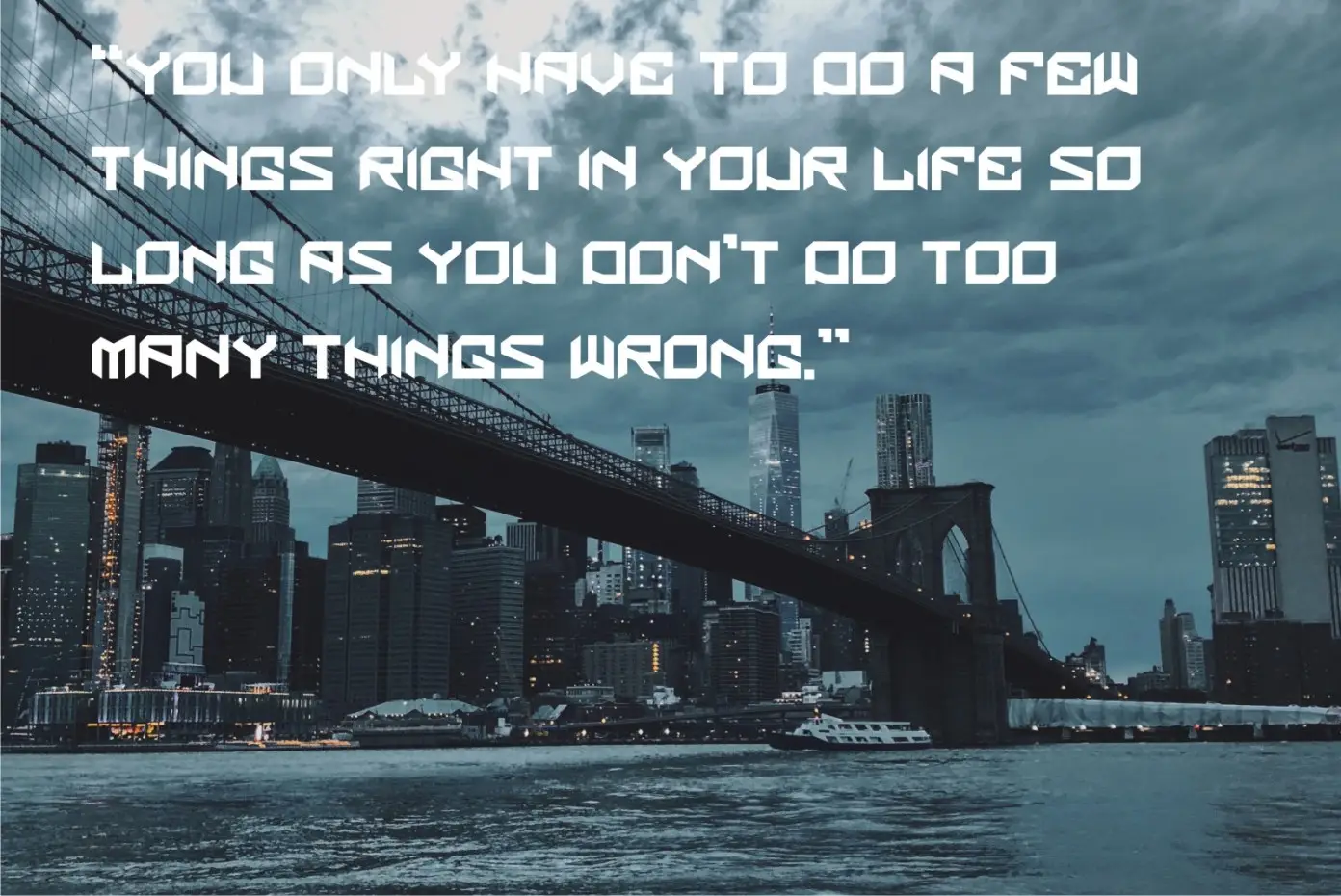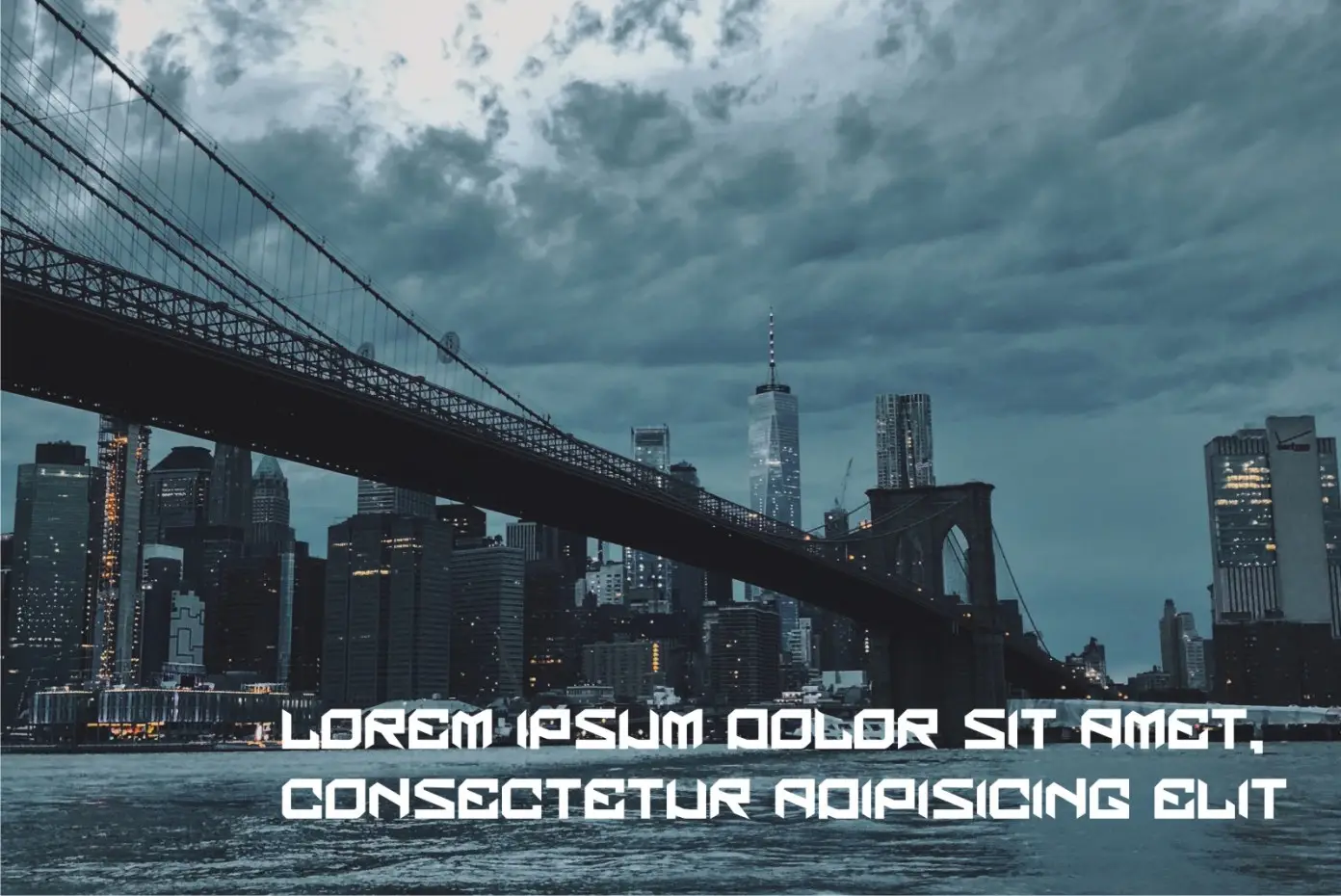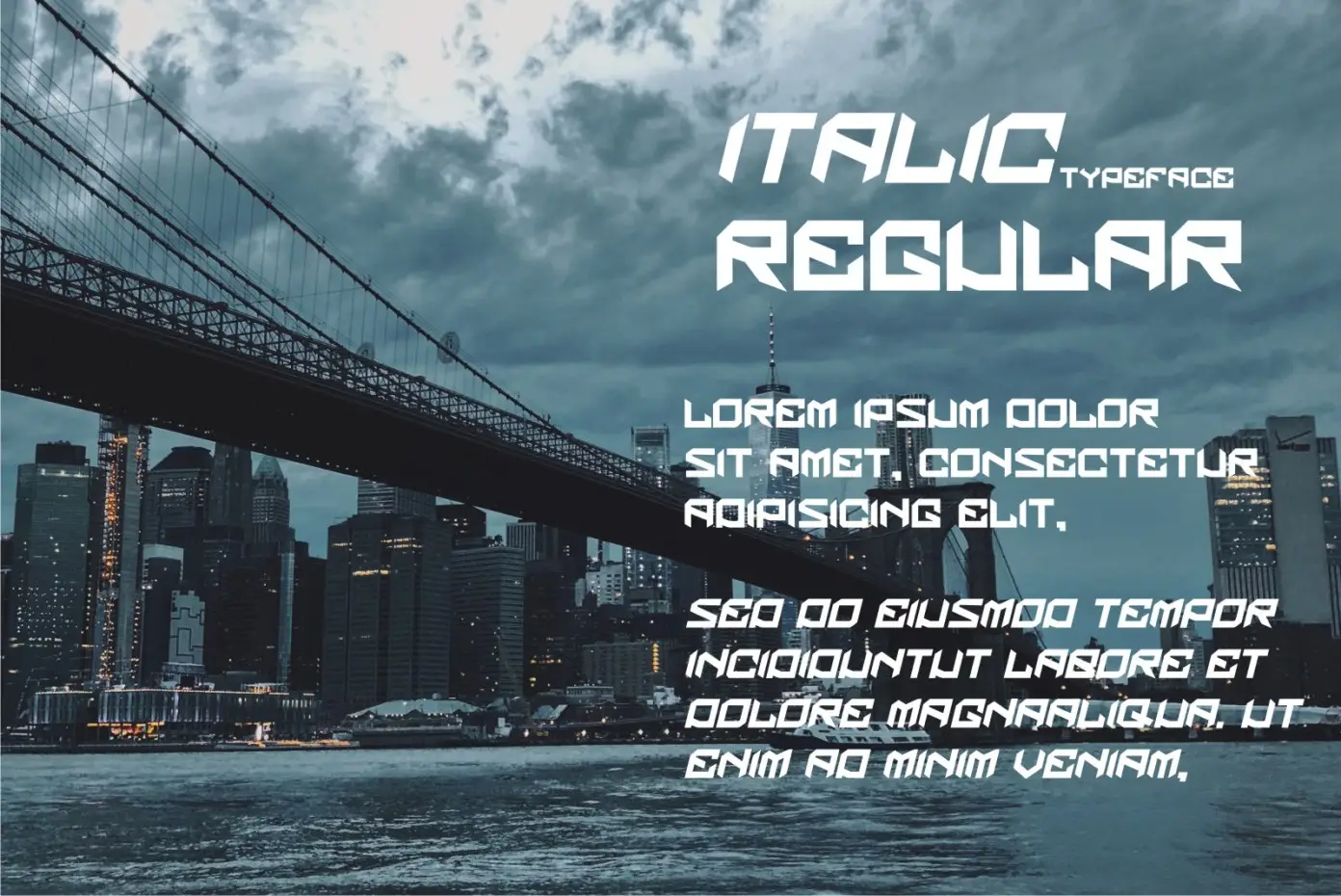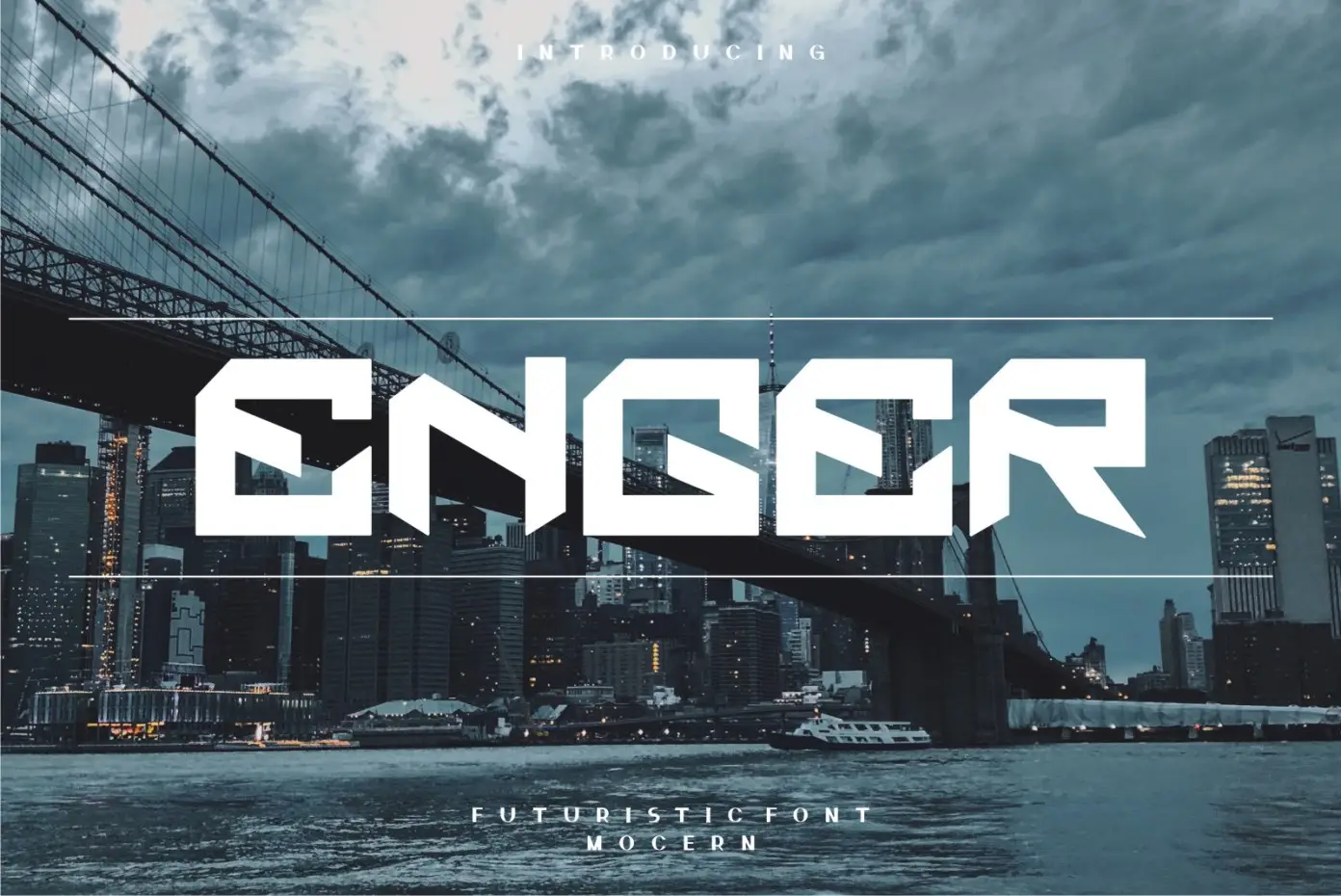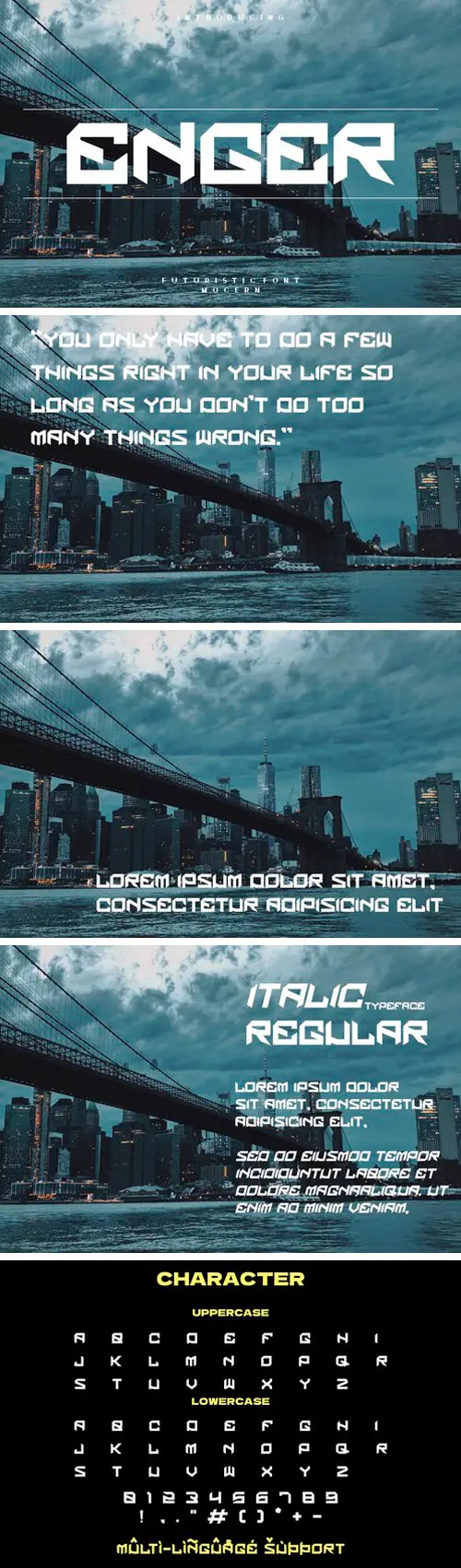
Enger Font
Introducing the Enger Font, a beautifully crafted typeface that combines elegance with modernity. This font is perfect for a variety of design projects, including branding, logos, web design, and print materials.
Utilize the Enger Font in your branding projects for a sophisticated touch. Its clean lines and modern aesthetic make it ideal for both digital and print applications.